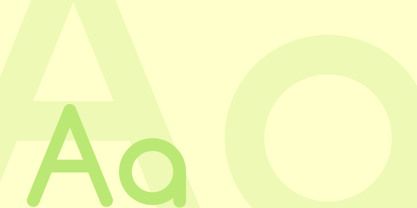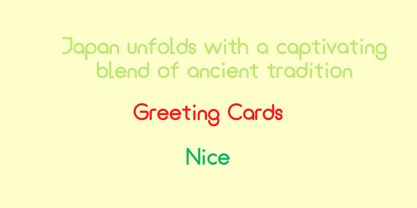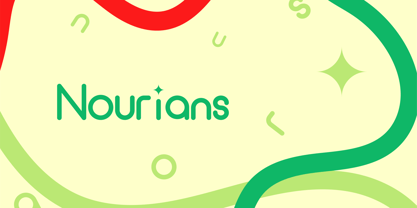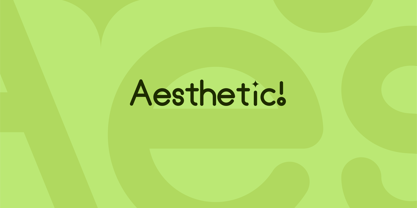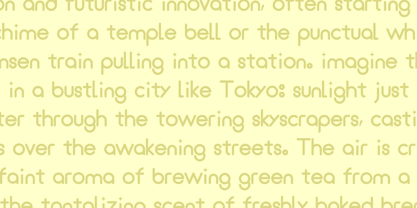
Nourians
by PufMotion
The Nourians Font Family was designed by Abdun Nur and published by PufMotion. Nourians contains 1 styles. More about this family
Nourians is a captivating display typeface that masterfully blends the clean simplicity of a rounded sans-serif with an enchanting twist. Its soft, approachable curves create a friendly aesthetic, while the distinctive star-shaped dots on the 'i' and 'j' inject a playful and memorable personality. Ideal for branding, packaging, children's media, or any project seeking a unique and heartwarming visual identity, Nourians ensures your message is not just read, but felt
Designers: Abdun Nur
Foundry: PufMotion